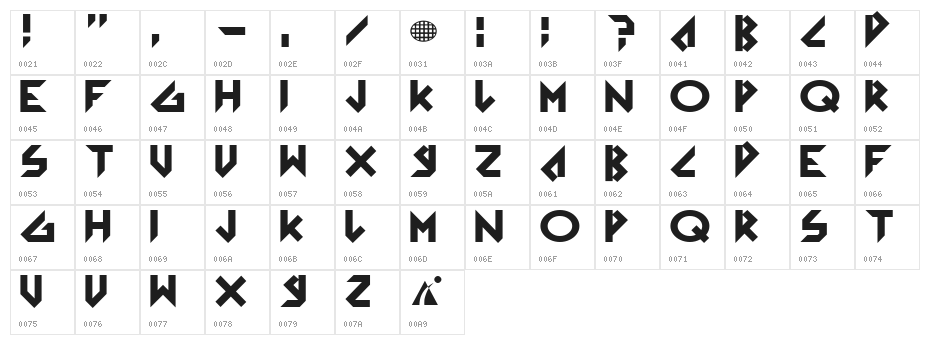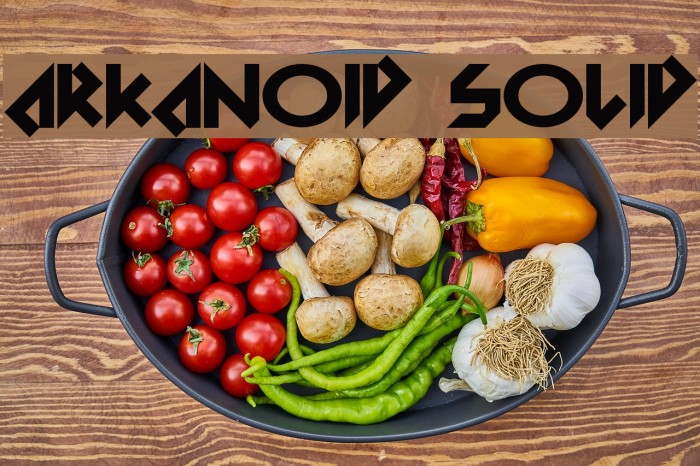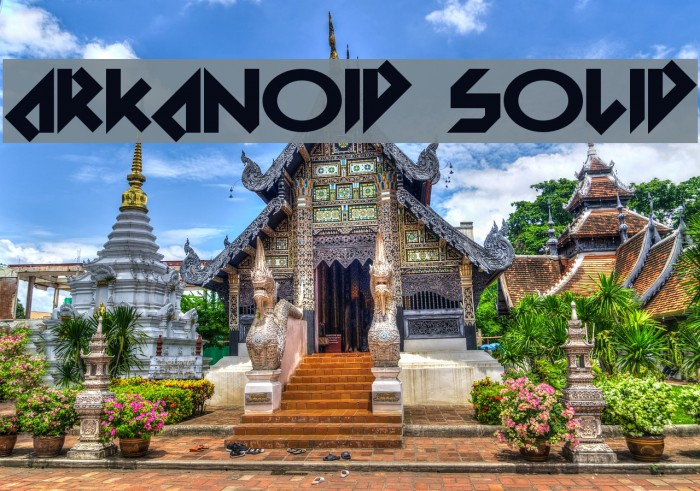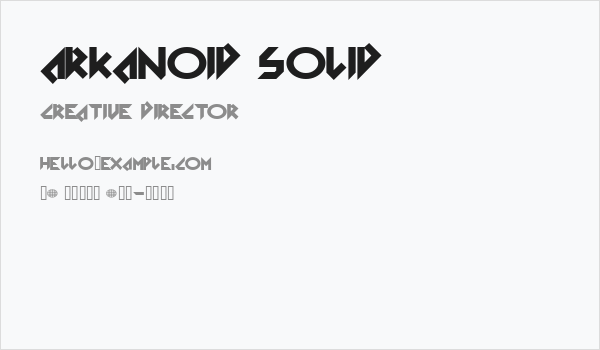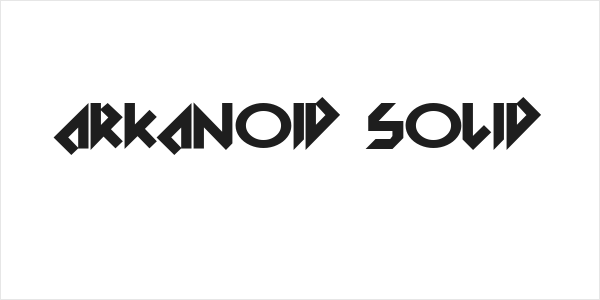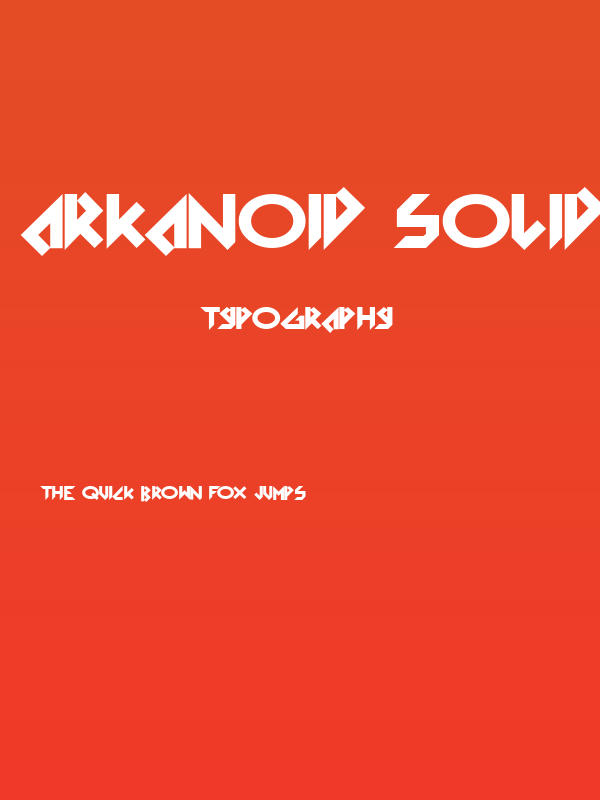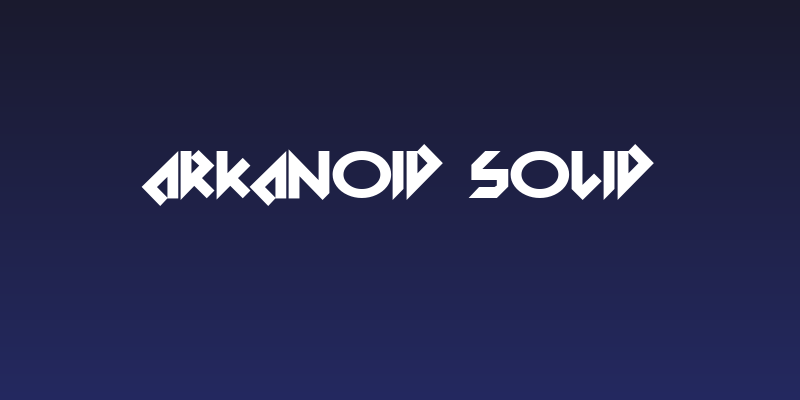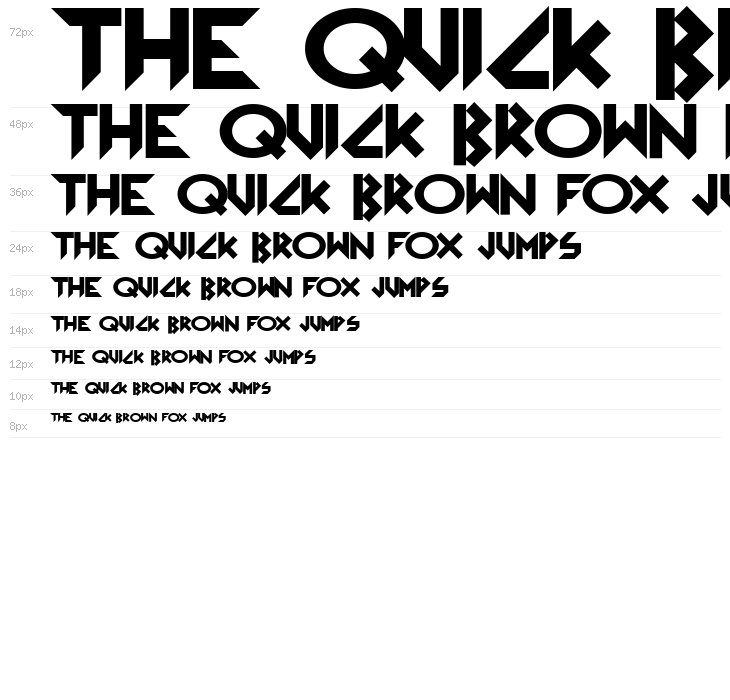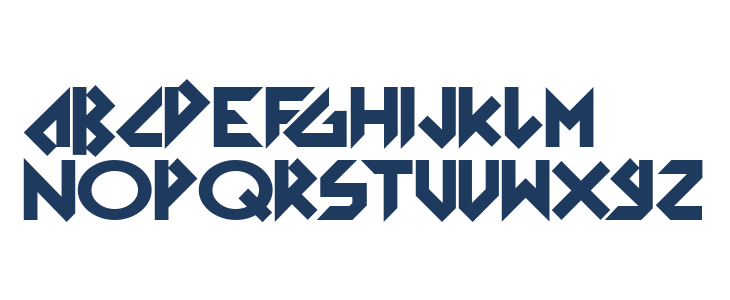
Arkanoid Solid Font
Arkanoid Solid Description
This font features a bold, geometric style with sharp angles and a futuristic aesthetic. The characters are constructed with a combination of straight lines and diagonal cuts, creating a dynamic and edgy appearance. The uppercase letters are particularly striking, with a consistent angular theme that runs throughout the alphabet. The font's design is reminiscent of retro video game graphics, making it ideal for projects that require a nostalgic yet modern touch. The characters are evenly spaced, providing a balanced and cohesive look. The font's unique style makes it stand out, making it suitable for eye-catching headlines and logos.
| Overall Style | Modern, Retro |
| Proposed Projects | Ideal for video game graphics, sci-fi movie posters, tech company logos, and retro-themed designs. |